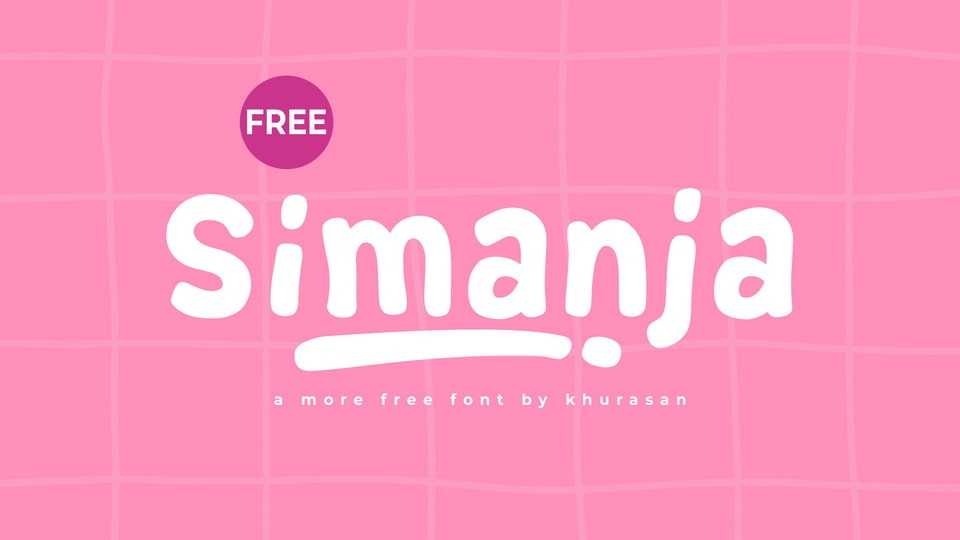
Download Simanja font, a sweet and soft playful typeface with a casual charm and a whole lot of character. Its smooth, rounded letterforms are full of bounce and whimsy.